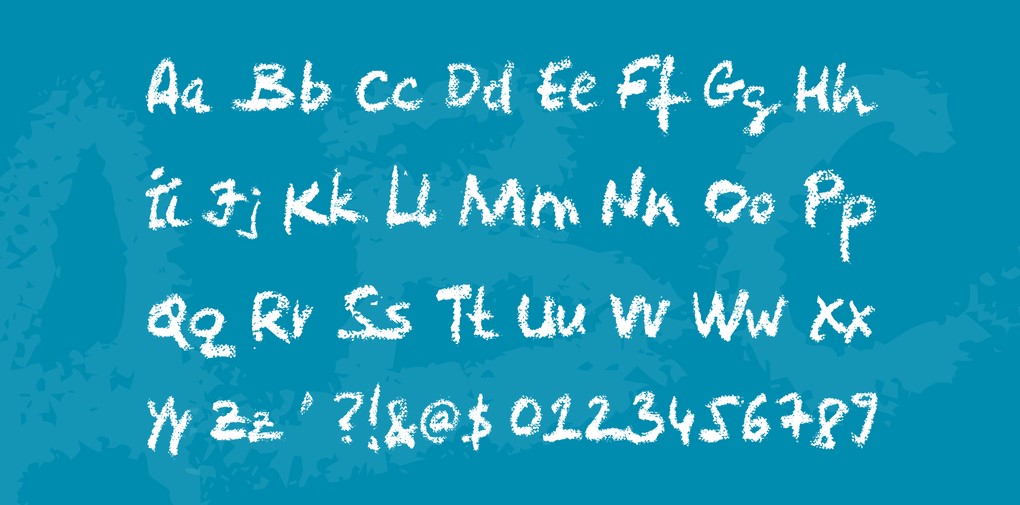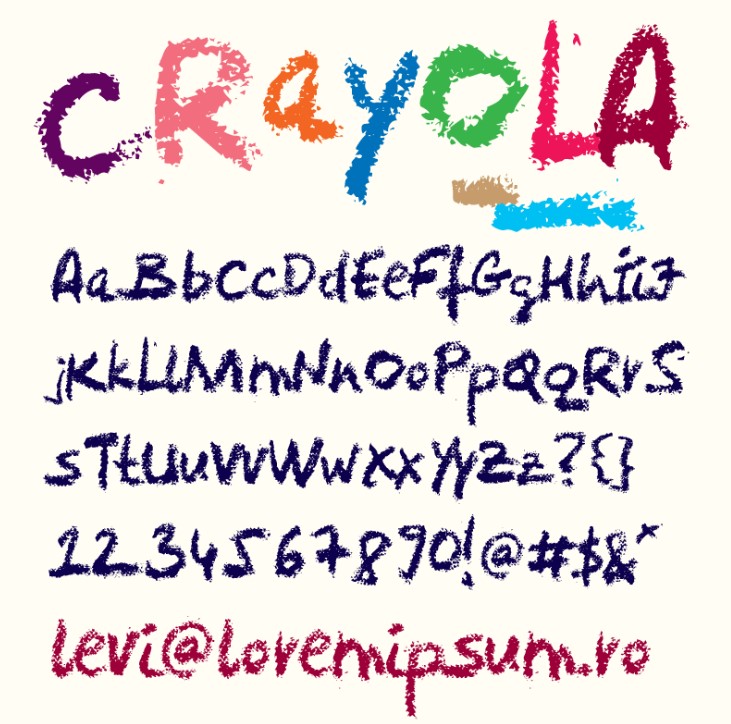
Crayola Font
Crayola Font is known as the drawing font. This is famous for its text generator function. This typeface is present inside the Microsoft Word. Now, the fantastic companies inc took the all right reserved for this corporation.
It’s headquarter placed in downtown north. That is derived from the milkshake font. Therefore, it will become a present-day manufacturer with a massive consumer base. So, at the winning, we wanna speak approximately the california font family used for the designing of its emblem.